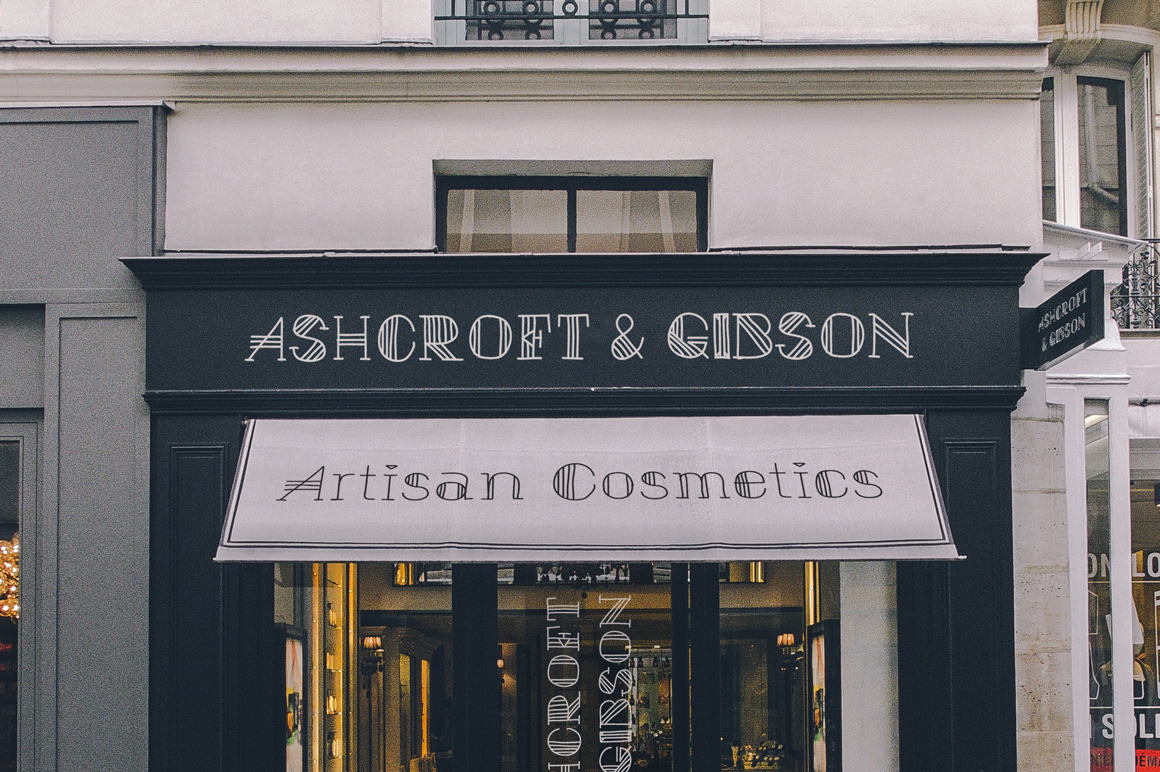
Hudso Font
Break out of Broadway, and put on a real show with this font called Hudso. Jumping through the arts & crafts movement, Hudso comes out half Art Deco and half modern pop-up shop with all the hand-made touches resulting in nu-deco fashion.
Hudso comes in 4 weights, which makes it versatile in many sizes.
Hudso knows the graceful moves to be romantic and delicate, and also has a refinement that is timeless and personal. Stylistically related to engraved fatface fonts seen on top-dollar antiques, but updated with DIY sensibilities and one-of-a-kind craftsmanship. Show some flair, and cash in your winnings with a fancy label waiting to happen, or recreate the history of the cinematic age of movie marquee and theater posters.
Inspirations for the font: catwalk fashion, cosmetic packaging, glamour, perfume on the boardwalk, empire newspaper headlines, candy from Paris, retro jazz age, elegant antiques
Hang on to this font—it will come in handy for other projects too: retail windows, skin care lines, etsy tags, period restaurant menus, makeup blog headers, wedding invitations, casino night, dapper gentleman clubs.